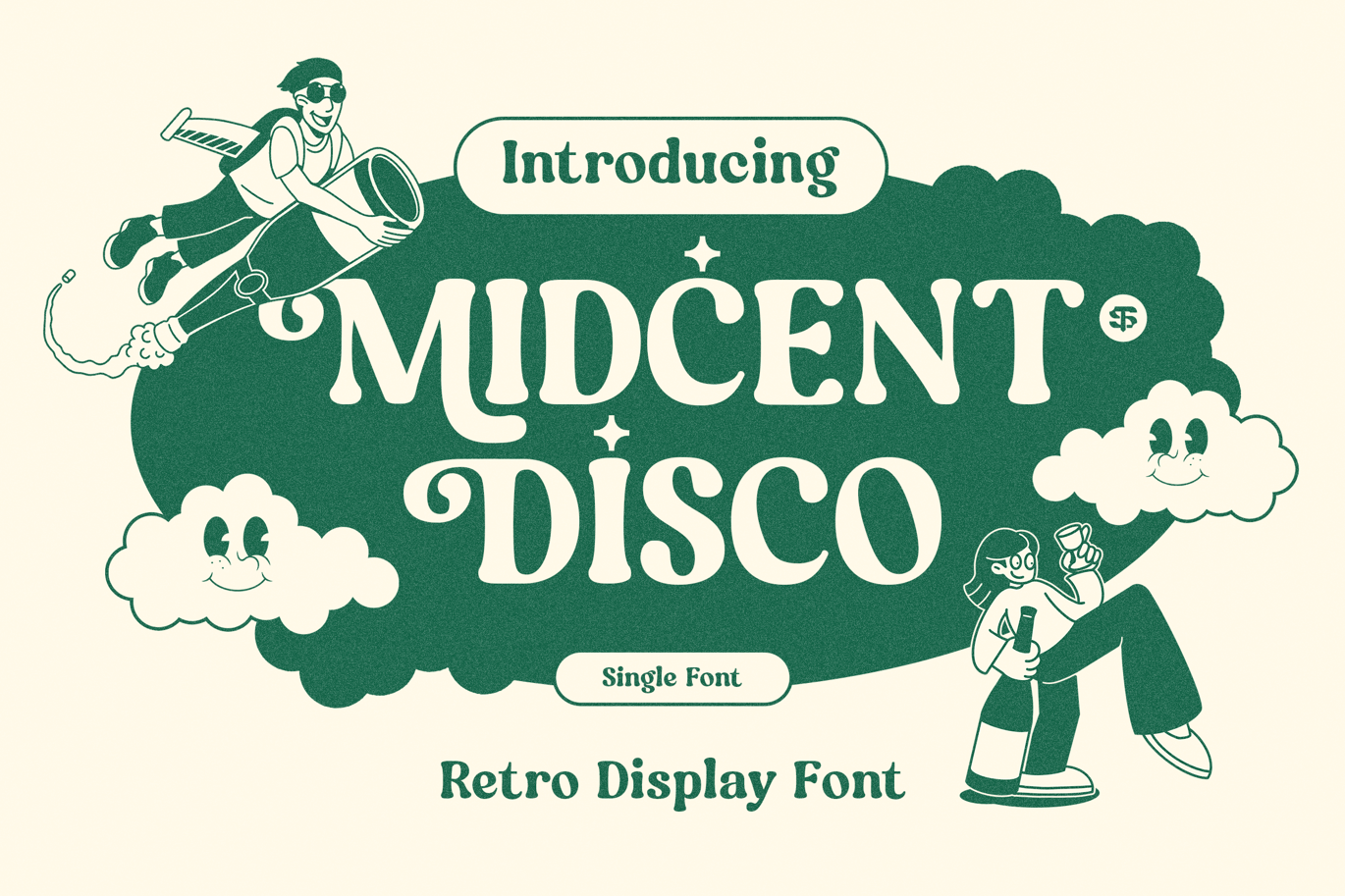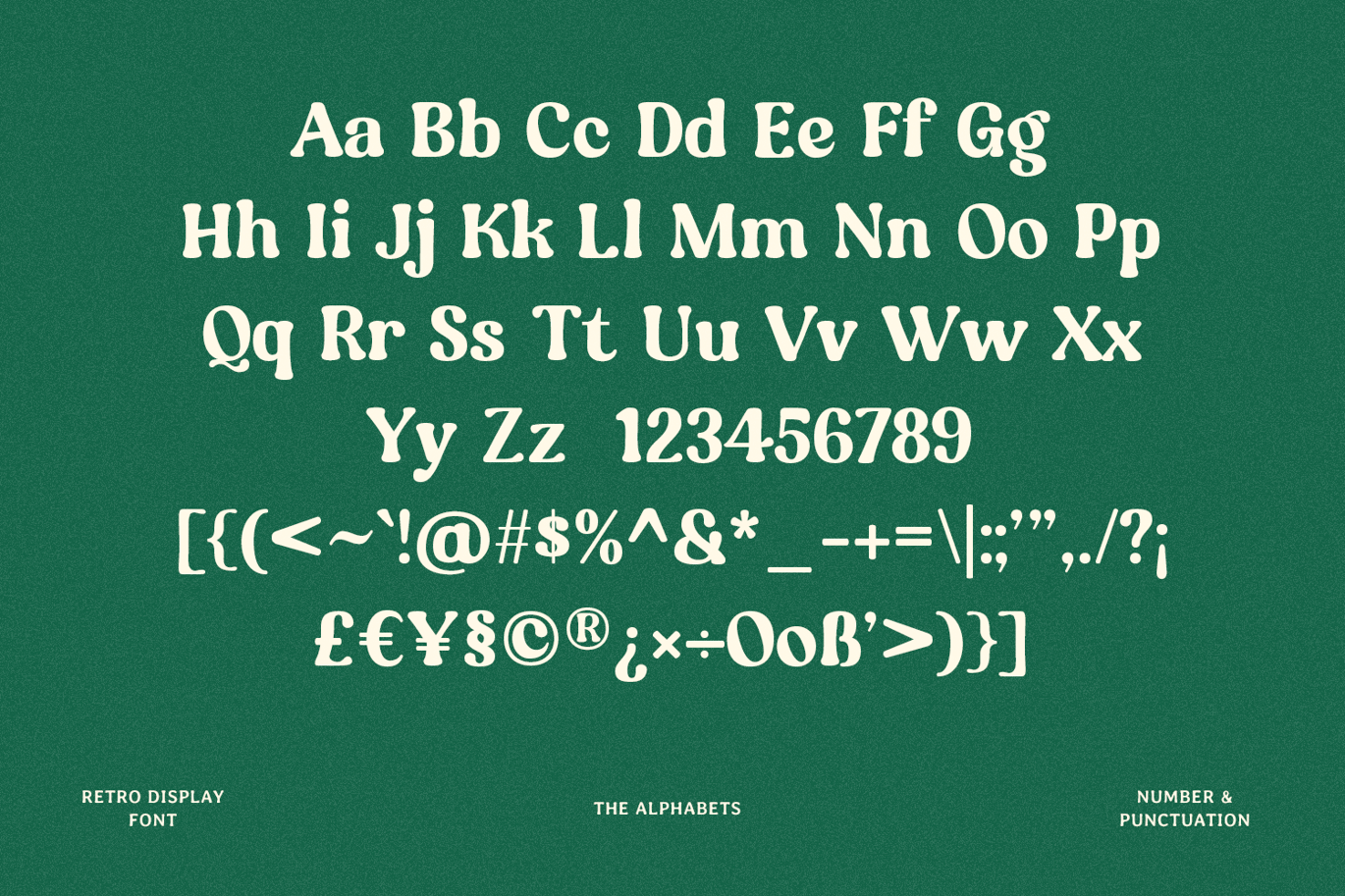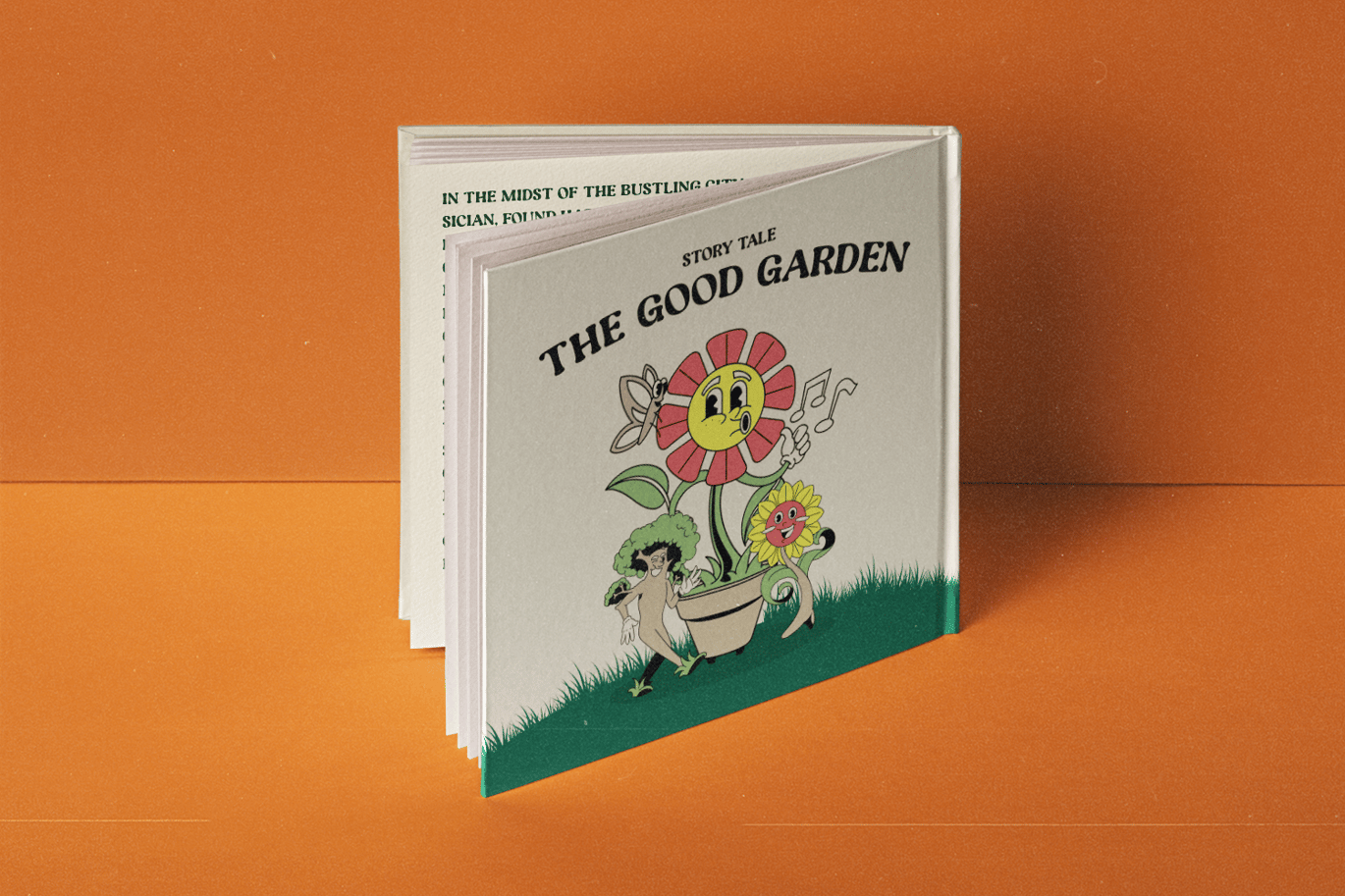
Midcent Disco – Retro Display Font
Midcent Disco – Retro Display Font is a versatile typeface ideal for various projects, including N/A, logos, branding, posters, blog headers, advertisements. The free version includes a full set of uppercase and lowercase letters, available in OTF, TTF, WOFF, WOFF2 format.
Midcent Disco – Retro Display Font